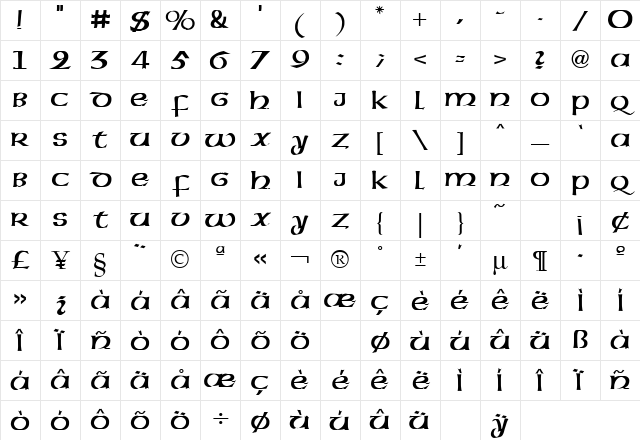
American Uncial Initials Regular
American Uncial Initials Family
Design Context for American Uncial Initials
American Uncial Initials is a composed and adaptable typeface that performs quietly and consistently across a wide range of design contexts.
Pro Tip: Use American Uncial Initials in both headline and body roles to test its range before committing to a single application.